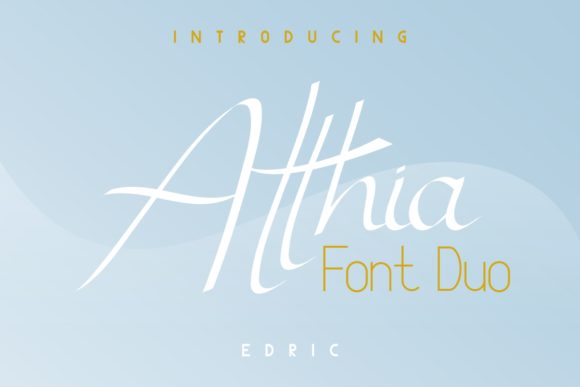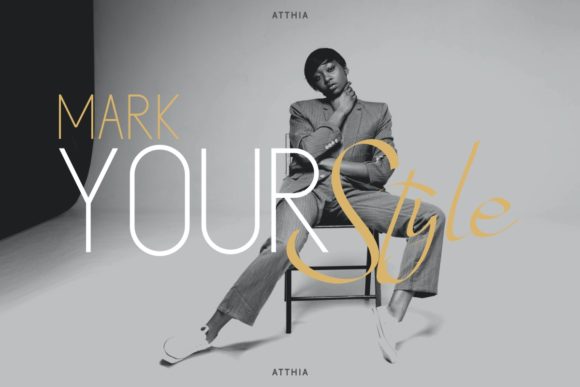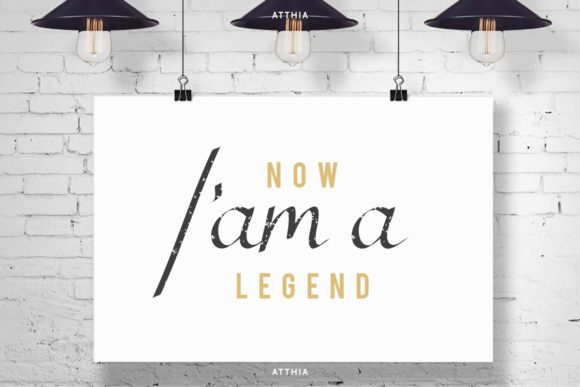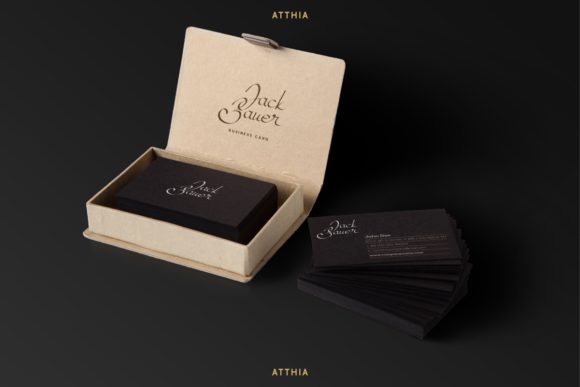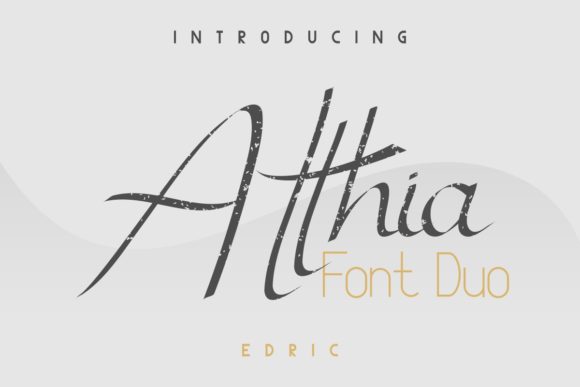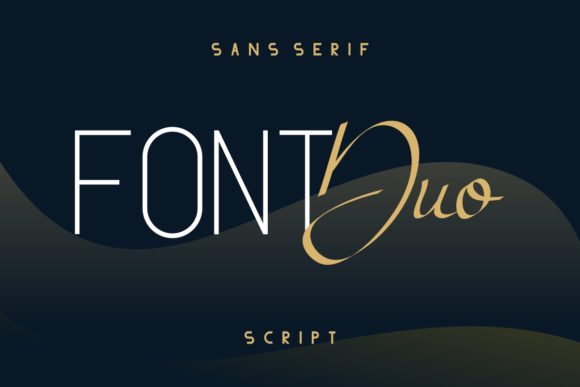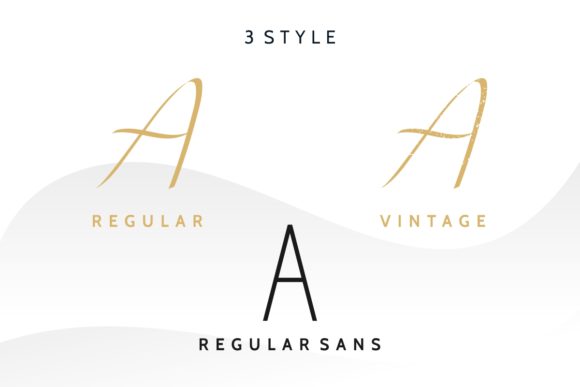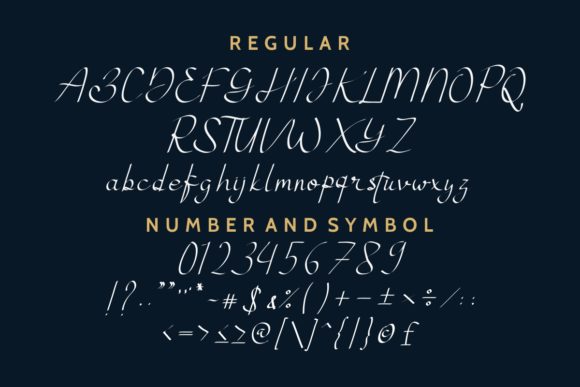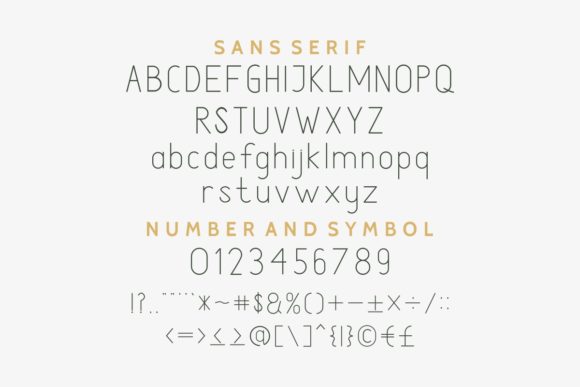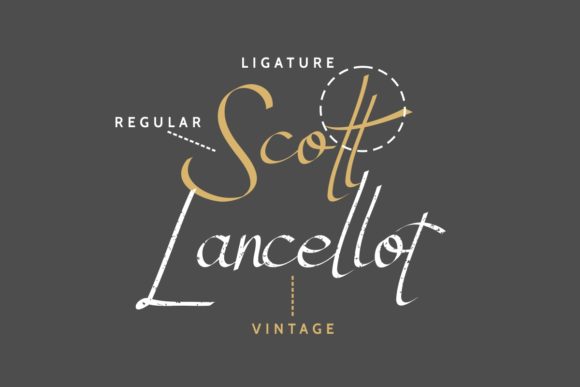
Atthia Font
About Atthia Font
Atthia is an equally elegant and romantic font duo, featuring a stunning script and modern serif font. Combine these two incredible fonts to create unique designs!